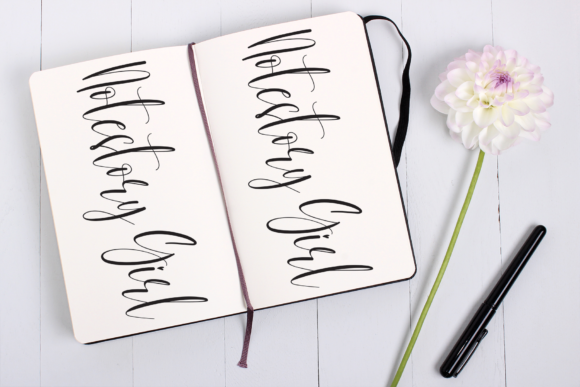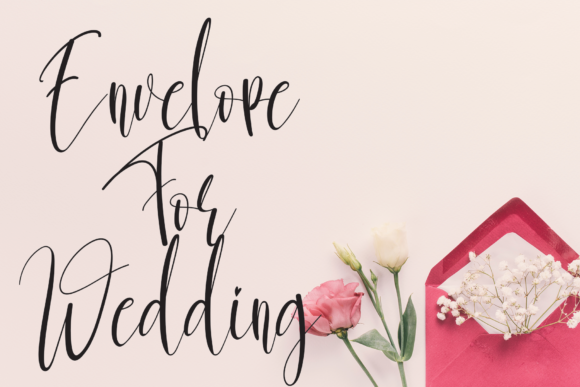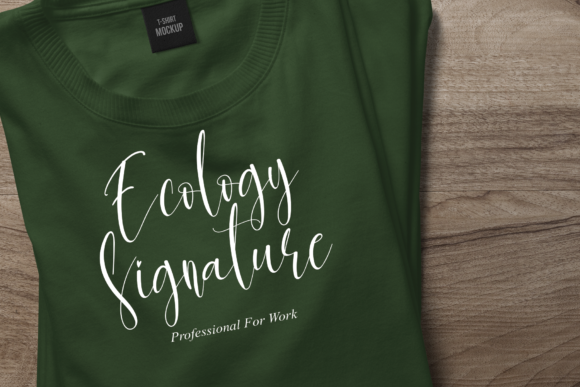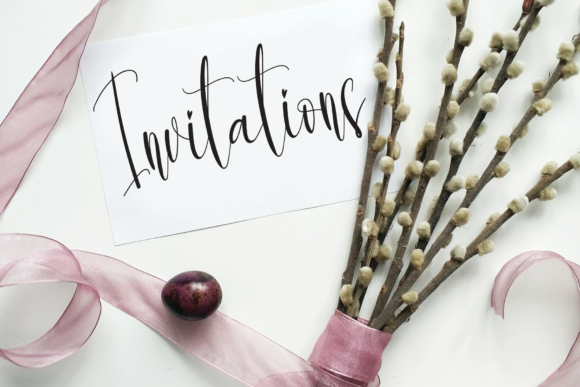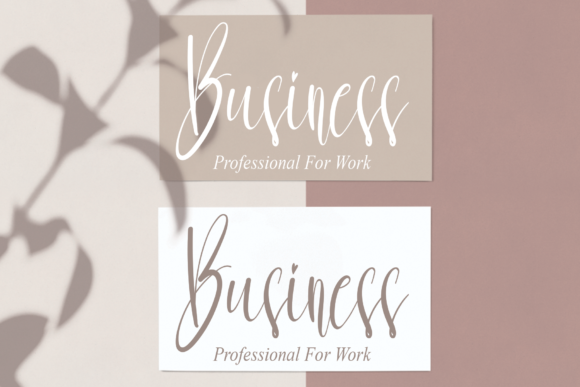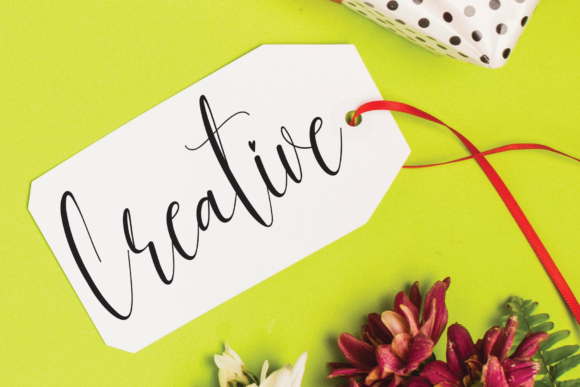
Introducing Hallimun Font: Elevate Your Designs with Elegance and Sophistication
In the world of typography, a font can make or break a design. For designers and crafters seeking to add a touch of elegance and sophistication to their projects, Hallimun Font is an exceptional choice. This beautiful, well-balanced, and stylish script font is defined by smooth curves, making it perfect for fashion branding or editorial designs. With Hallimun Font, you can confidently elevate your projects and achieve stunning results.
What Makes Hallimun Font Stand Out?
Hallimun Font boasts a unique blend of classic and modern elements, making it a versatile and eye-catching addition to any design. Its smooth curves and flowing lines create a sense of movement and fluidity, adding a dynamic touch to your projects. Whether you’re working on a fashion brand, editorial design, or any other creative project, Hallimun Font is sure to impress.
Key Features of Hallimun Font
- Beautiful and Well-Balanced Design: Hallimun Font features a meticulously crafted design that exudes elegance and sophistication.
- Smooth Curves: The font’s smooth curves create a sense of fluidity and movement, adding a dynamic touch to your designs.
- Perfect for Fashion Branding: Hallimun Font is ideal for fashion branding, allowing you to create stunning and memorable designs.
- Editorial Design Friendly: The font’s classic and modern elements make it suitable for editorial designs, such as magazines, newspapers, and books.
Why Choose Hallimun Font?
With so many fonts available, why choose Hallimun Font? Here are a few compelling reasons:
- Unique and Memorable: Hallimun Font’s distinctive design ensures that your projects stand out from the crowd and leave a lasting impression.
- Versatile: The font’s versatility allows you to use it across various design projects, from fashion branding to editorial designs.
- Easy to Read: Despite its elegant and cursive nature, Hallimun Font remains easy to read, making it perfect for body text and headlines.
Tips for Using Hallimun Font Effectively
To get the most out of Hallimun Font, consider the following tips:
- Pair with Neutral Backgrounds: Hallimun Font shines when paired with neutral backgrounds, allowing its elegant curves to take center stage.
- Experiment with Font Sizes: Don’t be afraid to experiment with different font sizes to create visual hierarchy and add emphasis to specific design elements.
- Use for Headlines and Titles: Hallimun Font is perfect for headlines and titles, adding a touch of sophistication and elegance to your designs.
In conclusion, Hallimun Font is an exceptional choice for designers and crafters seeking to add a touch of elegance and sophistication to their projects. With its beautiful, well-balanced design, smooth curves, and versatility, this font is perfect for fashion branding, editorial designs, and more. By incorporating Hallimun Font into your designs, you can confidently elevate your projects and achieve stunning results.